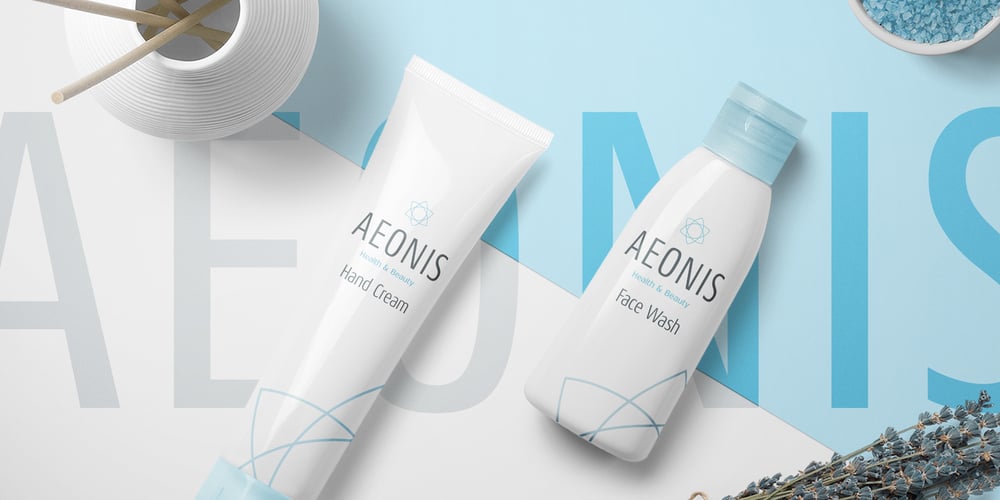
Aeonis Font Family was designed by Erik Faulhaber and published by Linotype. Aeonis contains 42 styles and family package options. After Generis™, Aeonis™ is the second large family of typefaces by Erik Faulhaber. The basic Aeonis sans-serif form references Ancient Greek lapidary inscriptions from the 9th century BC. Between the poles of antiquity and modernity, a deliberate contradiction of round and rectangular forms gave way to a new and energised font: Aeonis. Aeonis is available in three widths and seven weights, all of which have been carefully coordinated in terms of their proportions. The clear contrast in the bold stroke intensity emphasises the organic nature of the font and creates exciting aesthetics. In light of their open forms, the letters guarantee a good level of readability, even in small point sizes. Given that the dynamic individual forms of Aeonis also fit perfectly in a functional image, this typeface is ideal both for complex, text-heavy documents as well as for logos and display text settings. Particular attention was paid to ensuring carefully coordination proportions: all styles and weights have the same cap height, as well as identical ascender heights, x-heights, and descender lengths. The widths of all figures, currency symbols, mathematical operators, and special characters have been carefully aligned for tablular settings. Aeonis is an extremely systematic design. All of its widths and weights may be combined with one another, without restrictions. For users who do not like the open A, an alternate A with a crossbar is included in each font as well.